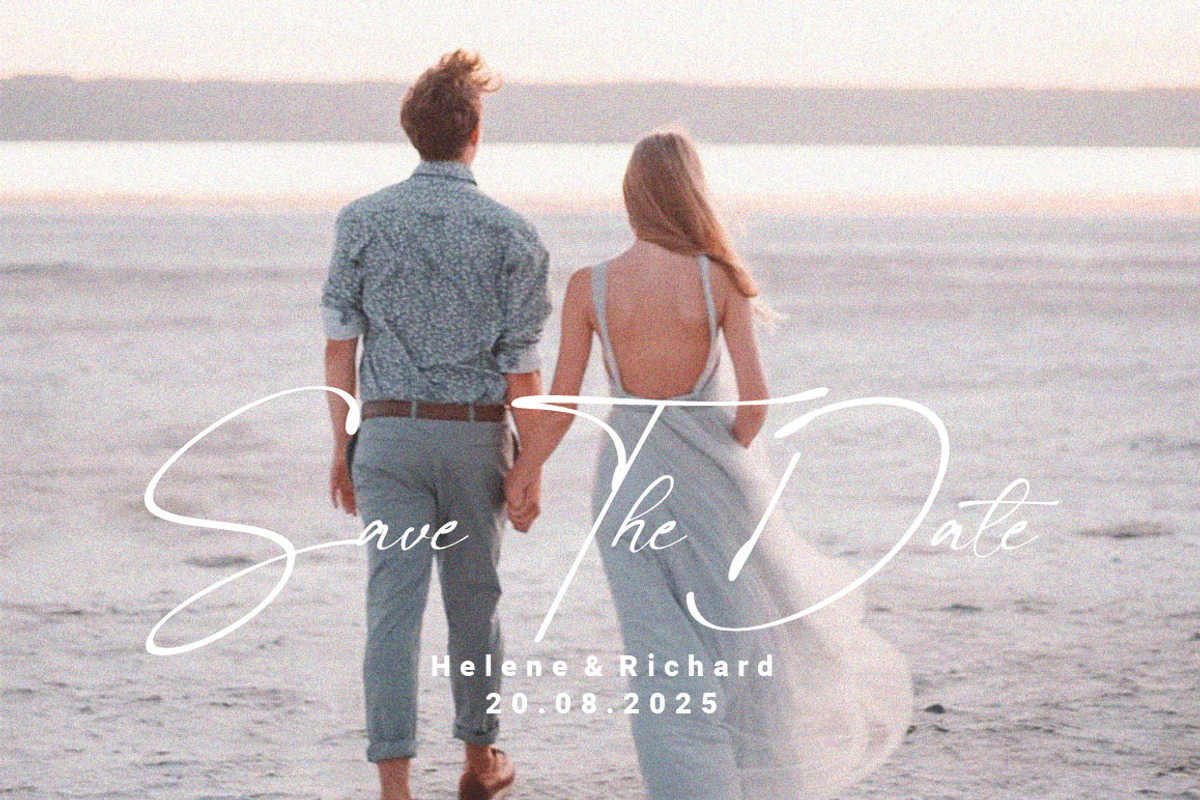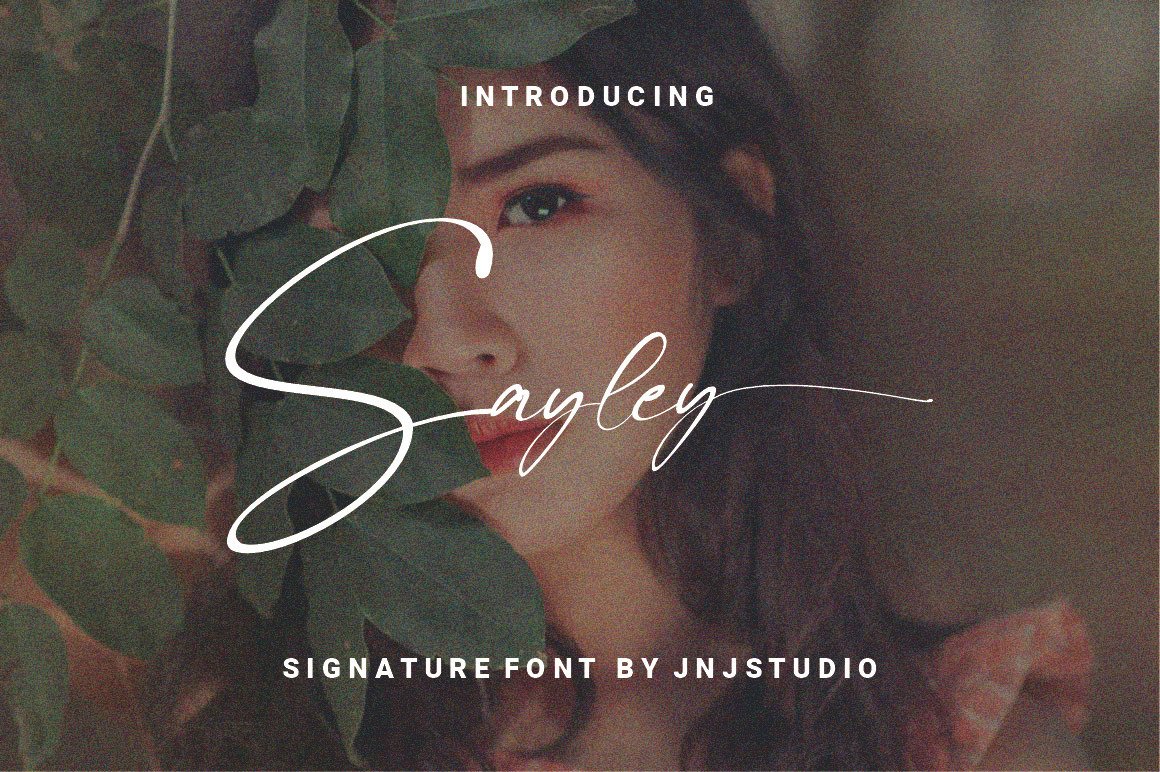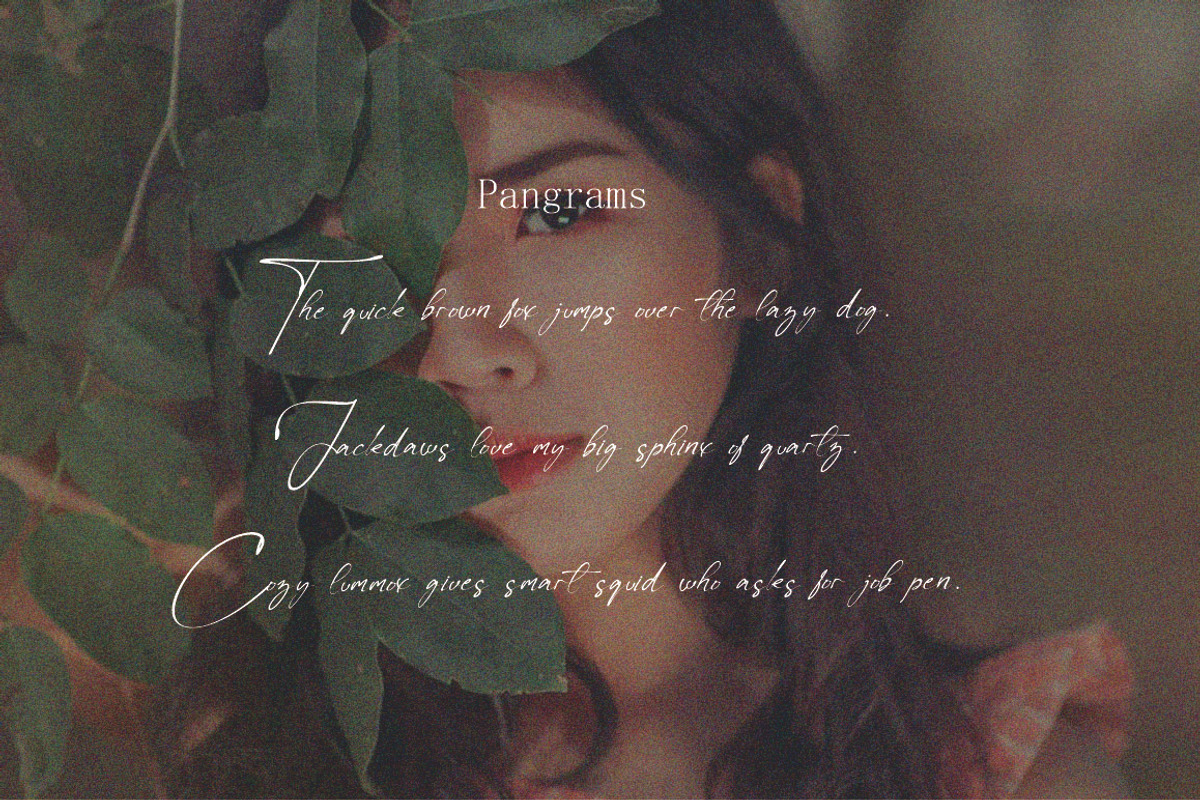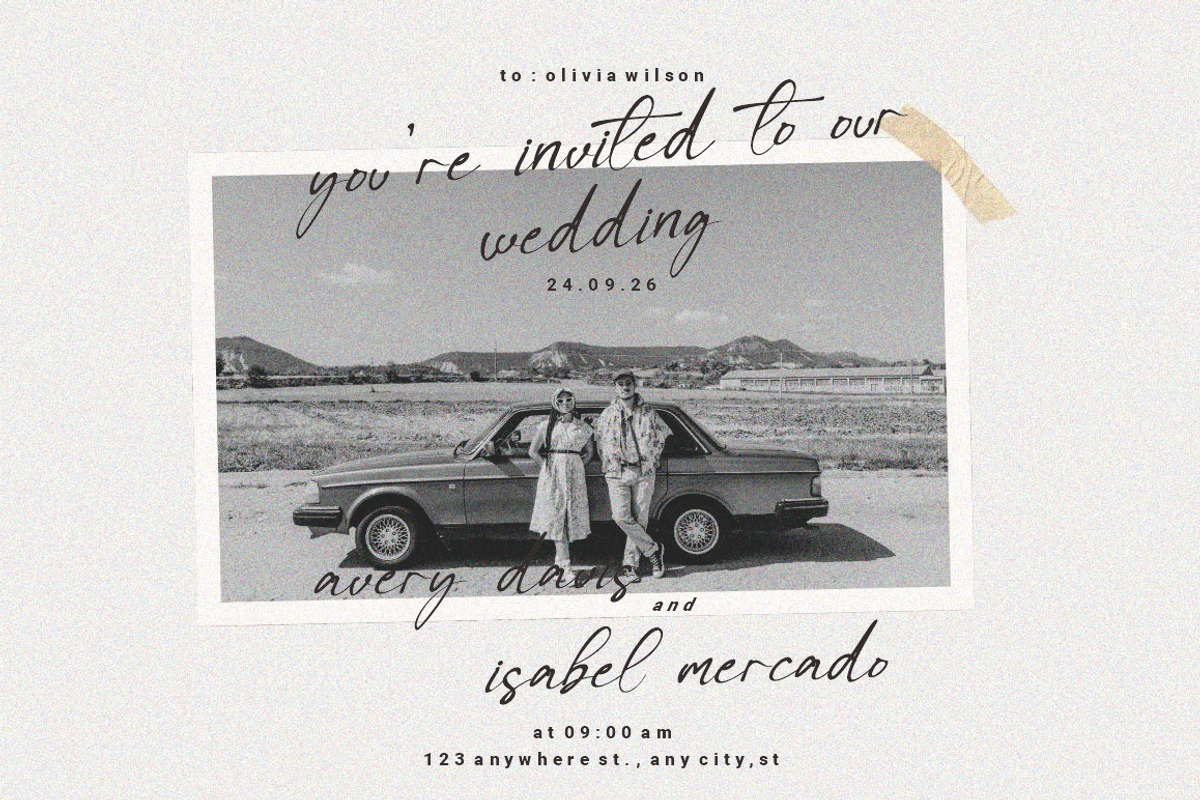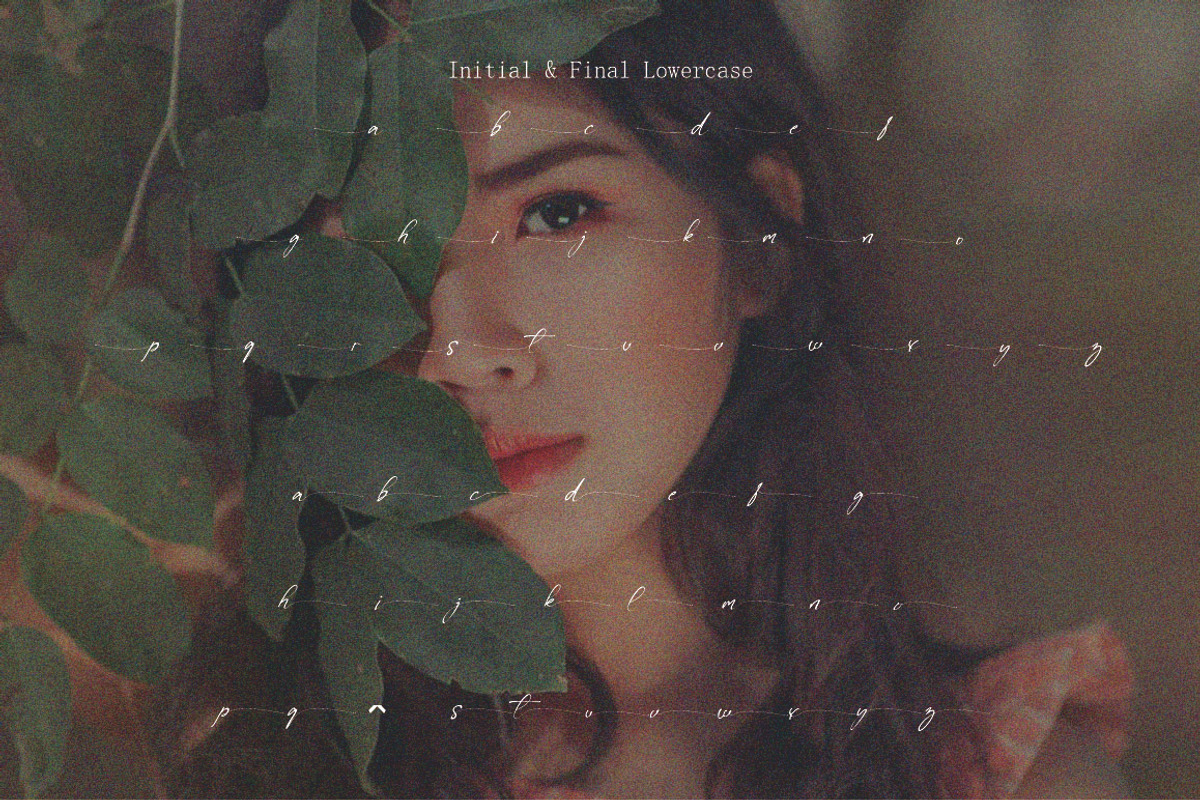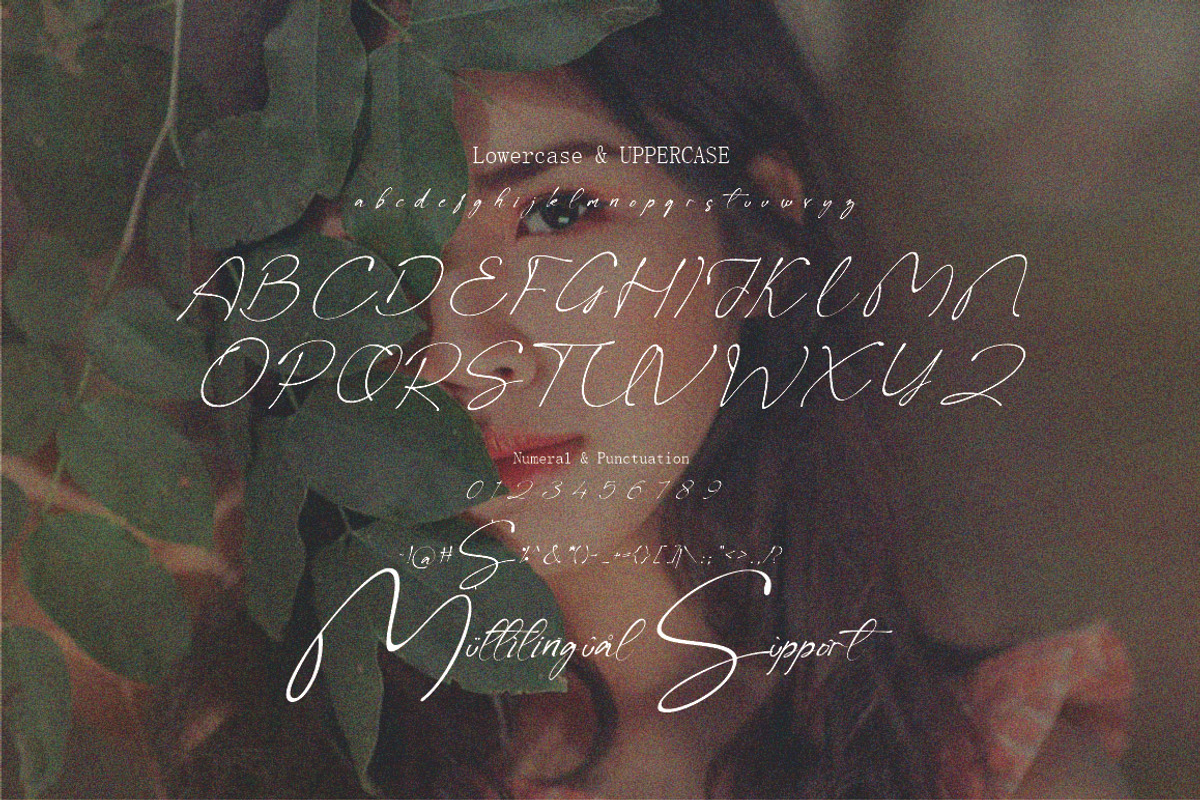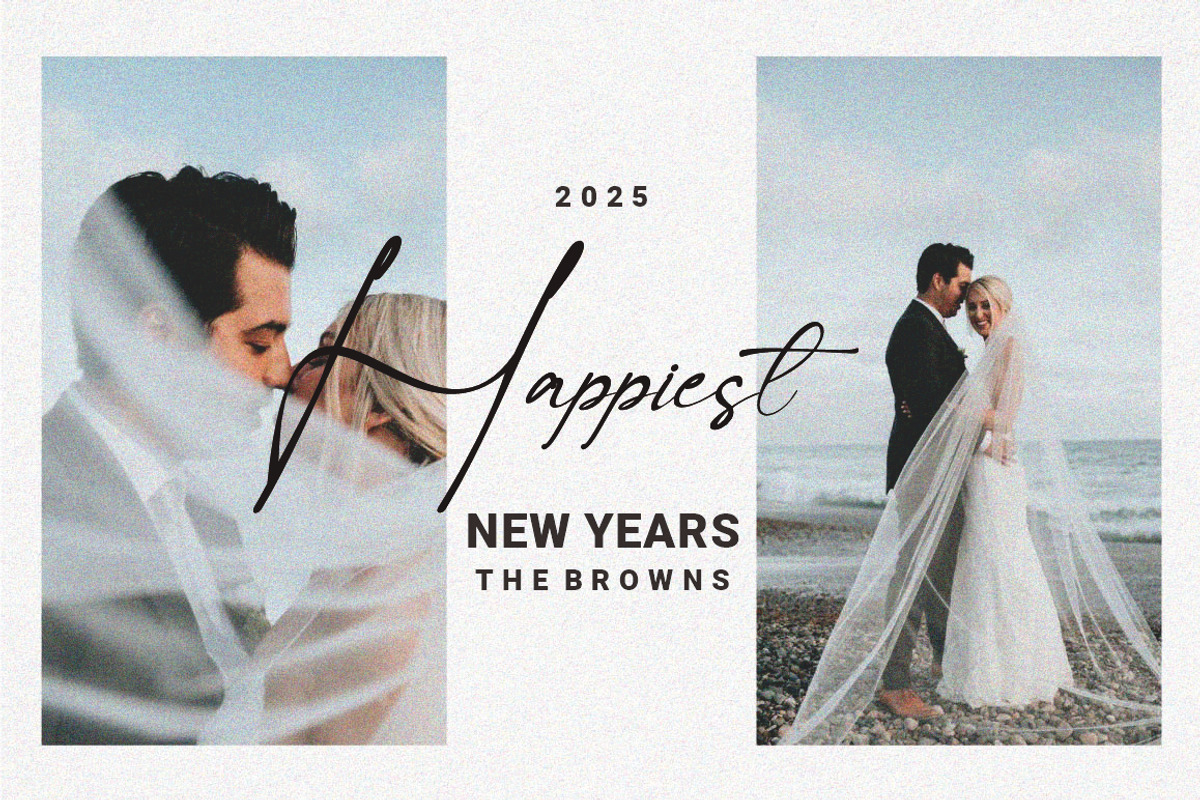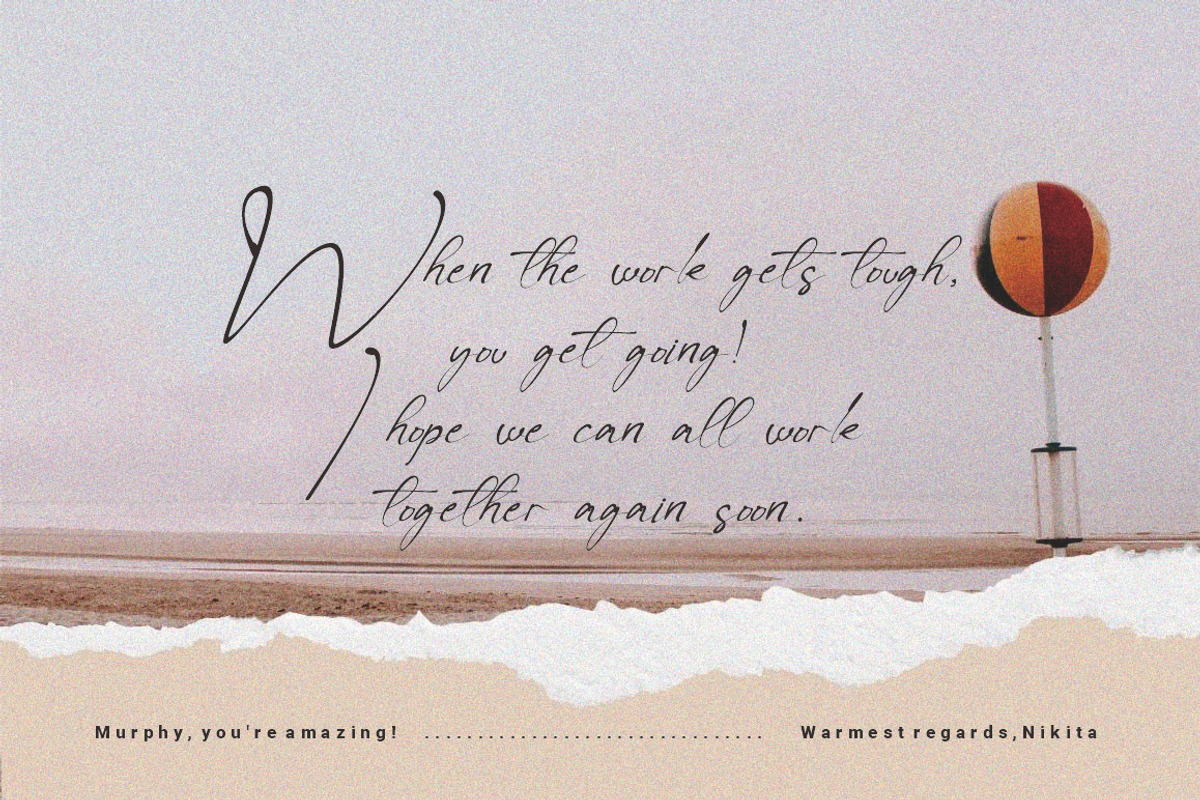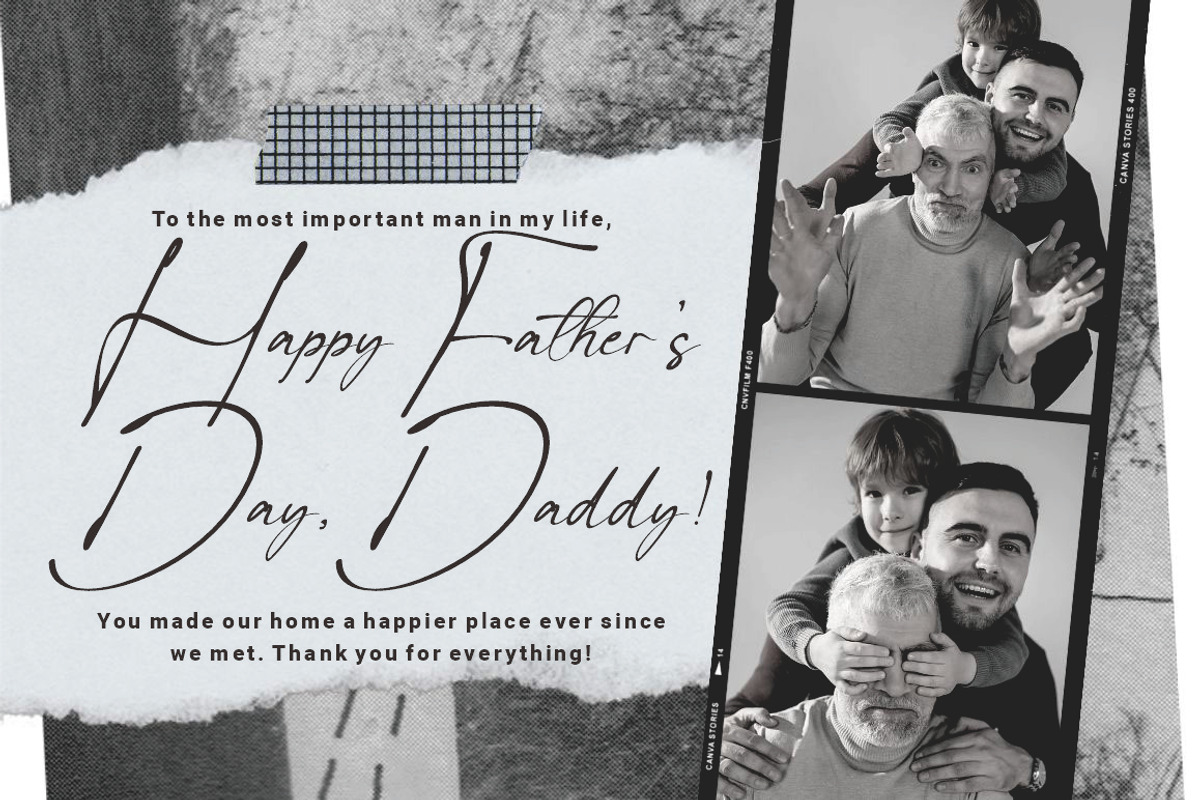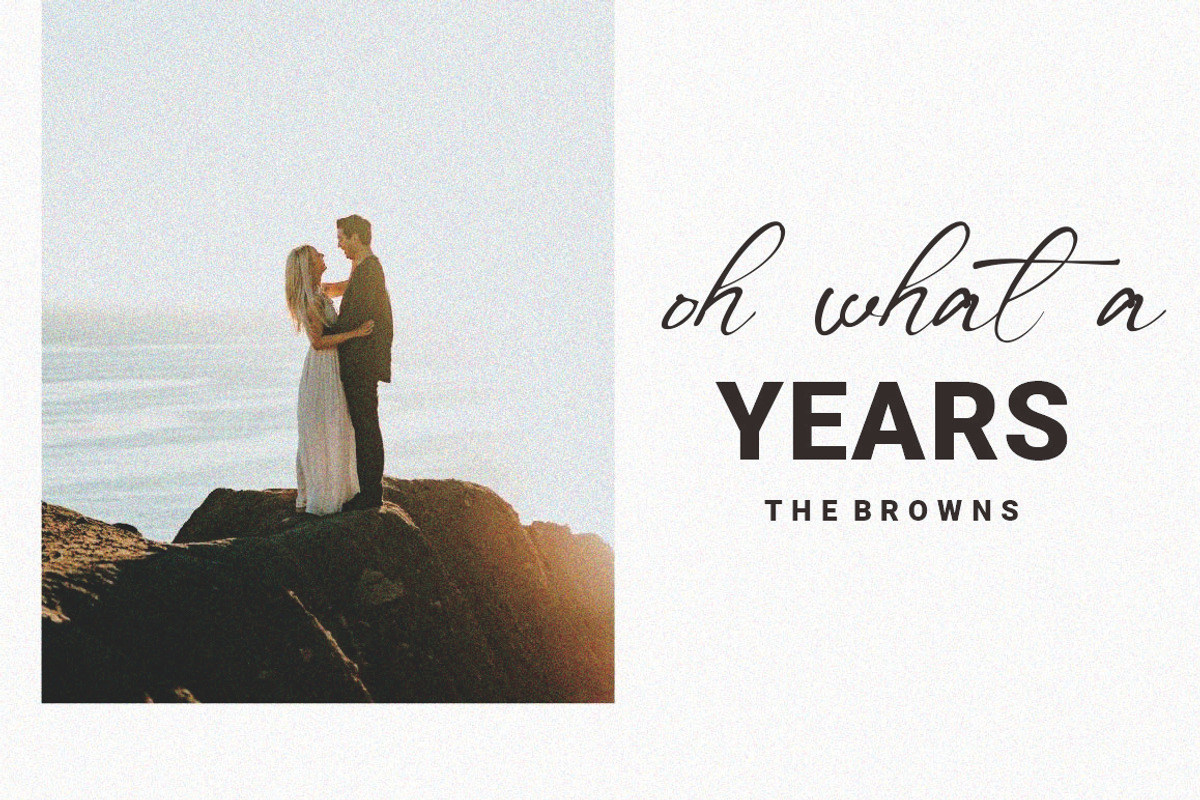
Sayley Signature Font
Sayley is a stylish and elegant signature font that embodies sophistication and personal charm. Designed with smooth, flowing strokes and natural curves, this font mimics the fluidity of real handwriting, making it perfect for branding, logos, invitations, and personal projects.
With its delicate yet confident letterforms, Sayley adds a touch of exclusivity and refinement to any design. Whether you're creating a signature-style logo, wedding stationery, or social media graphics, Sayley ensures a luxurious and authentic handwritten feel.
Elegant and natural handwriting style Smooth and flowing letterforms Perfect for branding, logos, and invitations Stylish and sophisticated look Let Sayley bring a personal and artistic touch to your designs with its exquisite handwritten appeal!